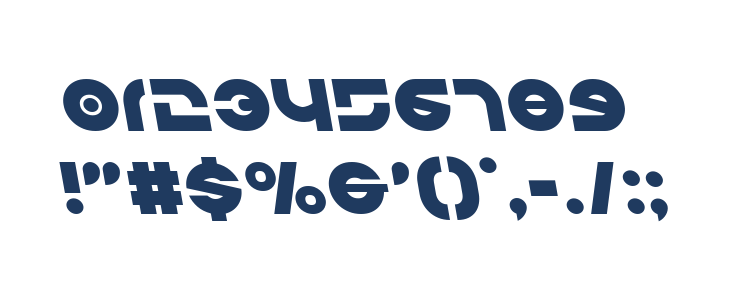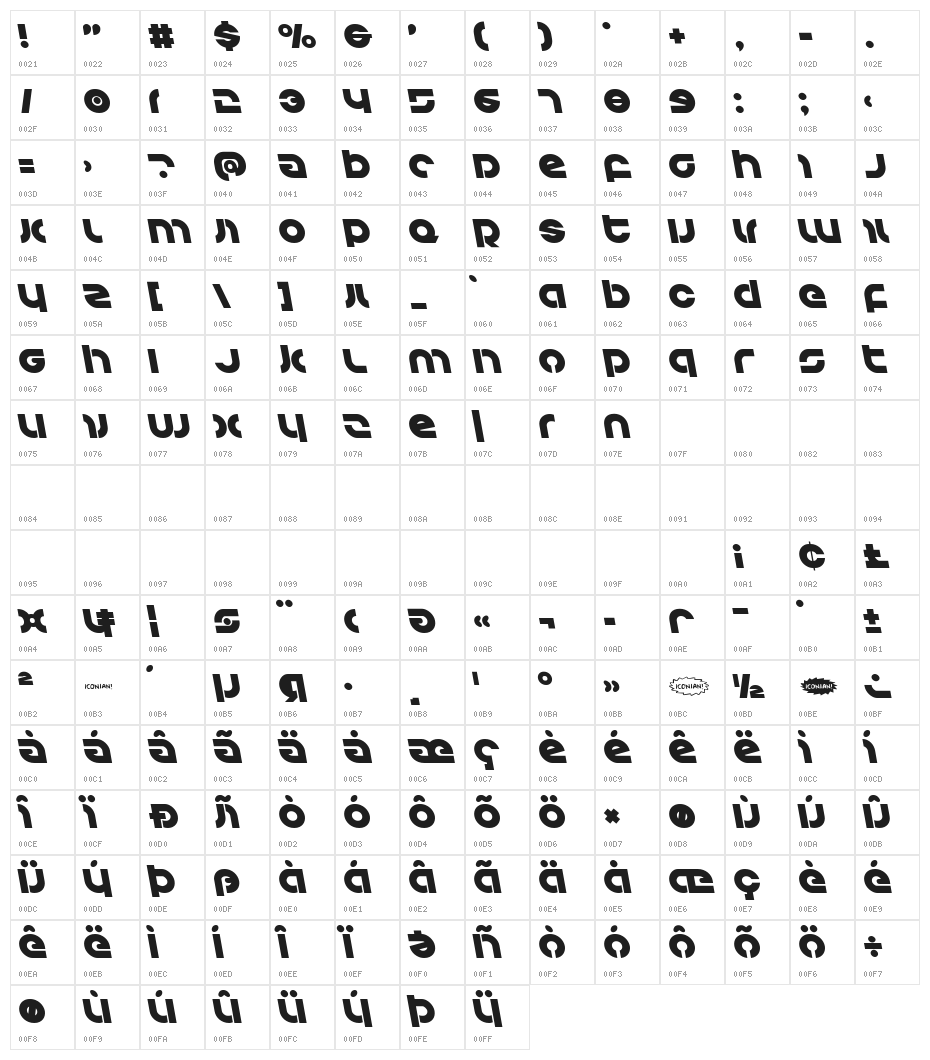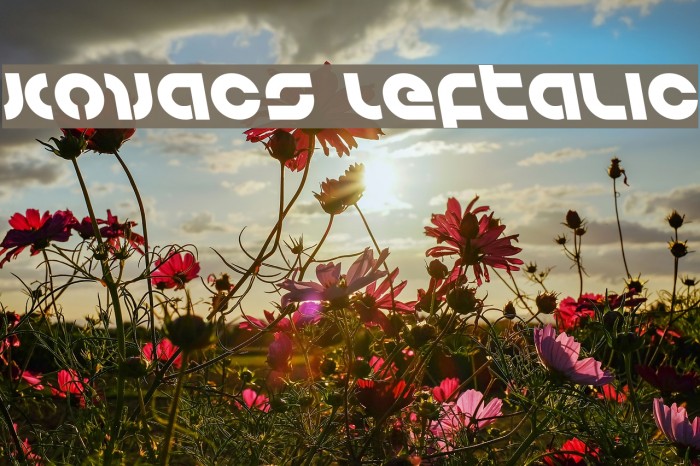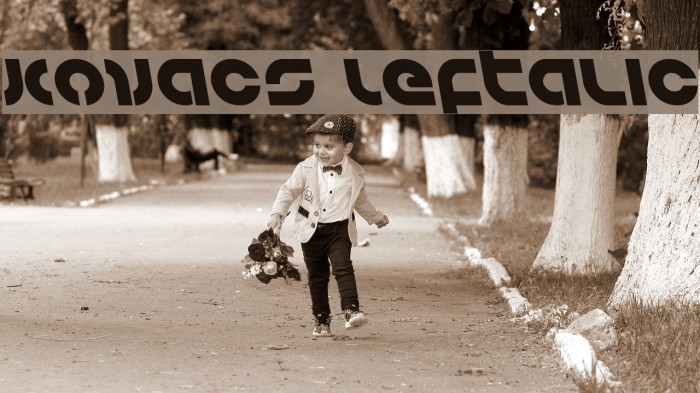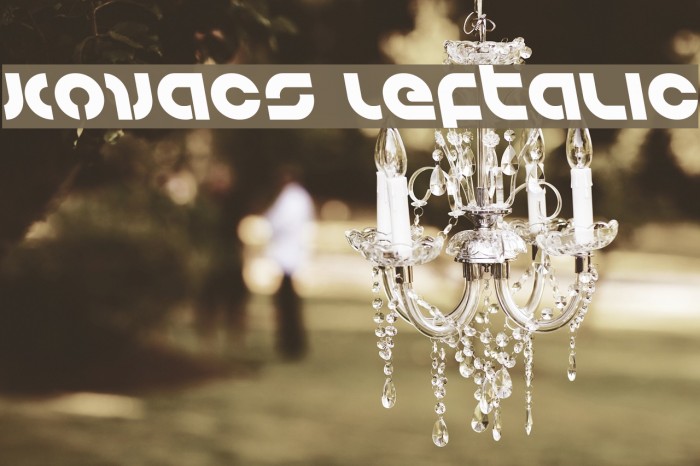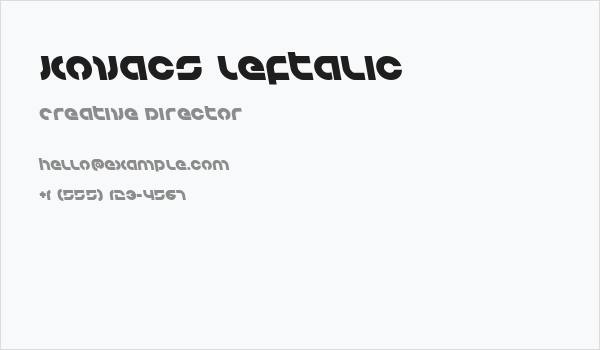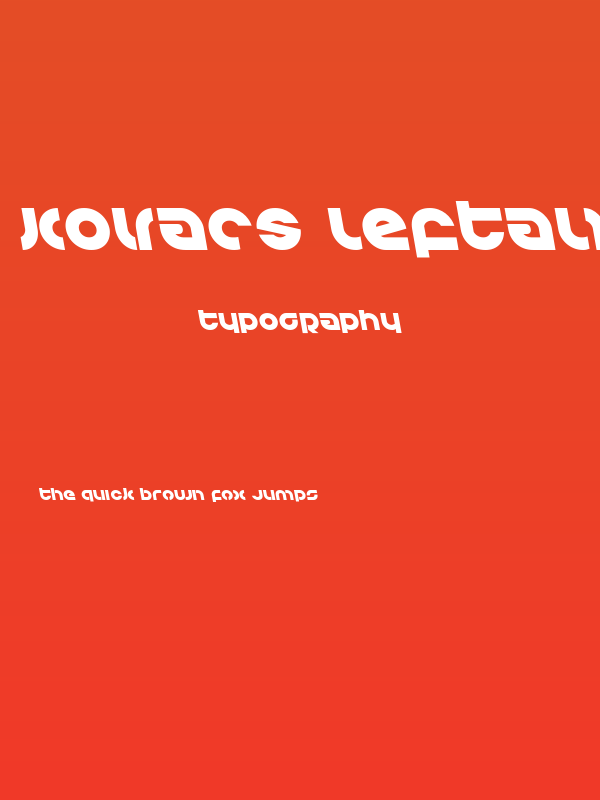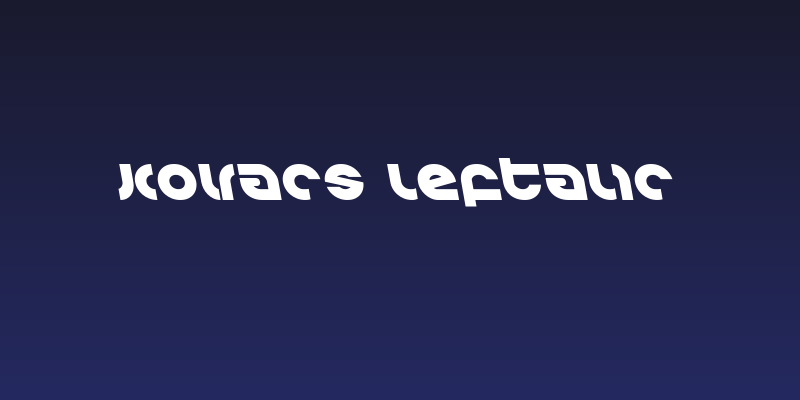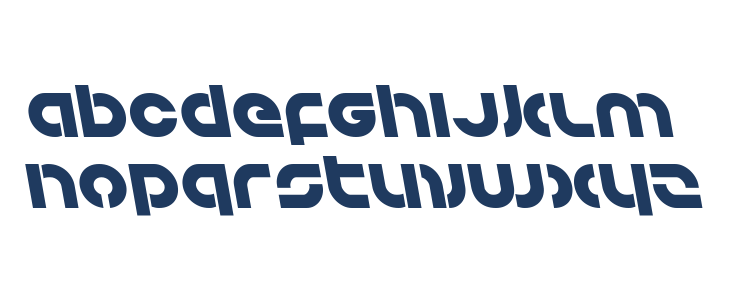
Kovacs Leftalic Font
Kovacs Leftalic Description
This font features a bold and futuristic design with a distinct geometric style. Each character is crafted with a unique combination of curves and sharp angles, creating a sense of movement and modernity. The letters are slightly italicized, adding a dynamic flair to the overall appearance. The font maintains a consistent weight throughout, ensuring readability while still offering a visually striking aesthetic. The numbers and special characters follow the same design principles, making them cohesive with the alphabet. The boldness and unique style make it ideal for projects that require a strong visual impact.